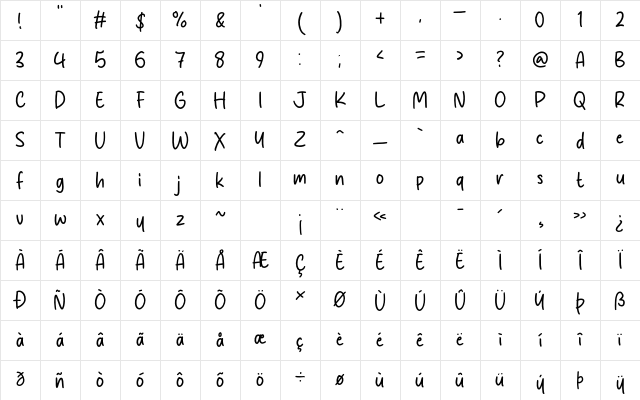
Hello Jany Regular Free Font
Hello Jany Regular
Designer: MJType (Muhamad Junaid) www.mjtype.com
Design Context for Hello Jany
Hello Jany is a composed and adaptable typeface that performs quietly and consistently across a wide range of design contexts.
Pro Tip: Use Hello Jany in both headline and body roles to test its range before committing to a single application.